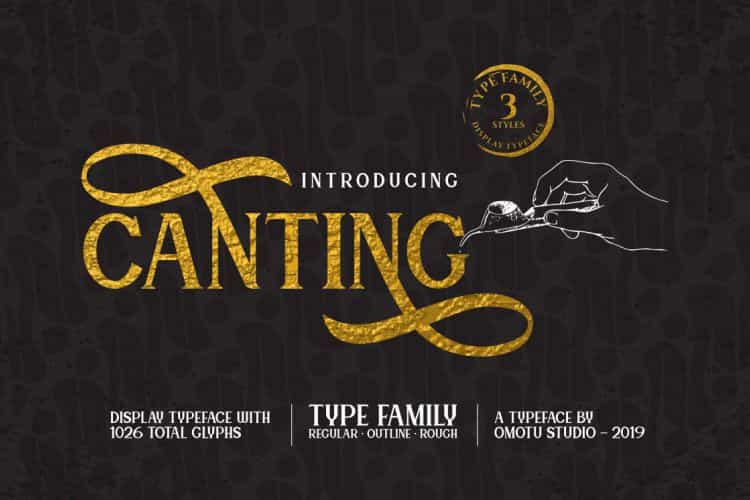
Introducing Canting Font. It is designed and shared by Omotu. Canting Display Typeface is a decorative serif font. It is the best example of retro look in a modern and minimalist style. The font has specific uppercase letters and alternative characters. The font is just right for the elegant logo design, product packaging, quotes, poster design, brand identity , lettering and a lot more.